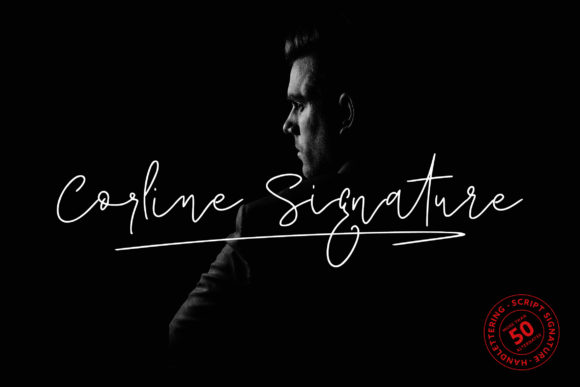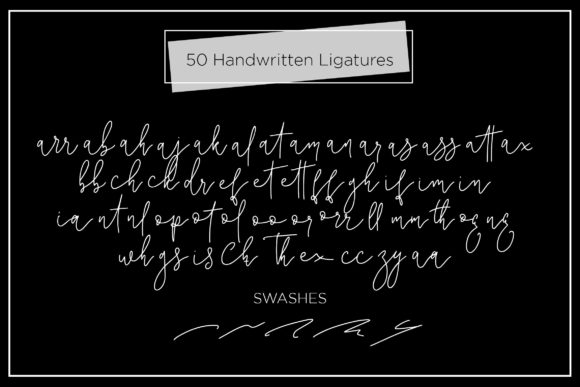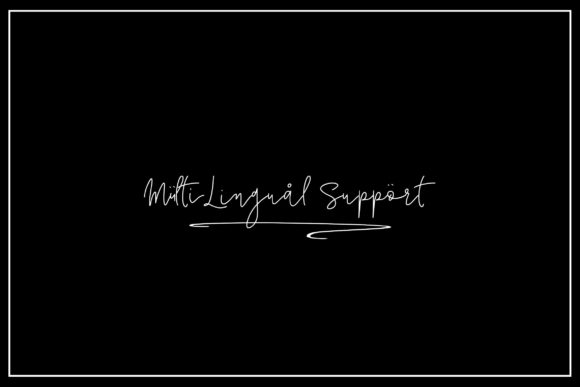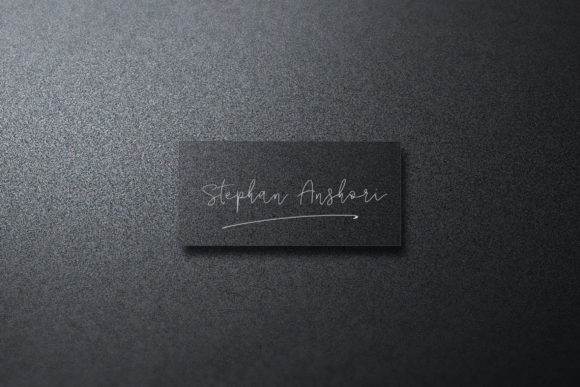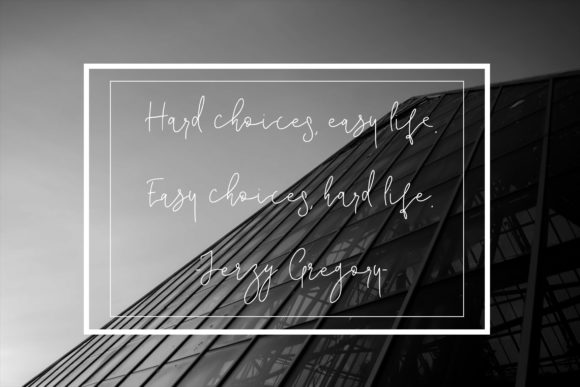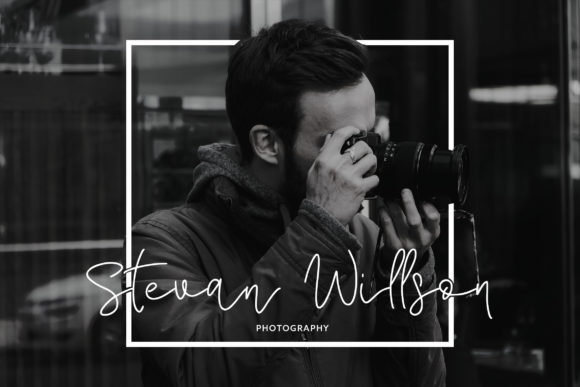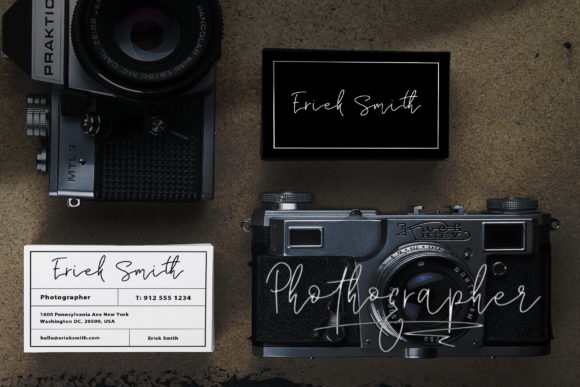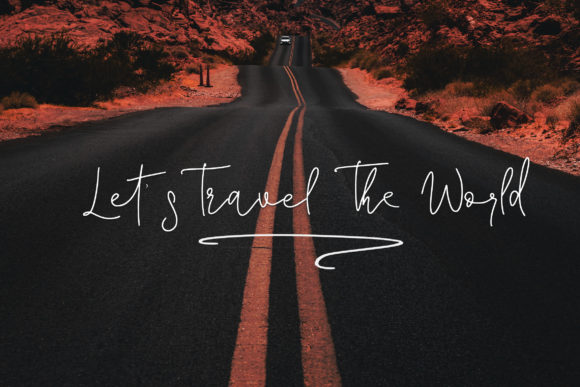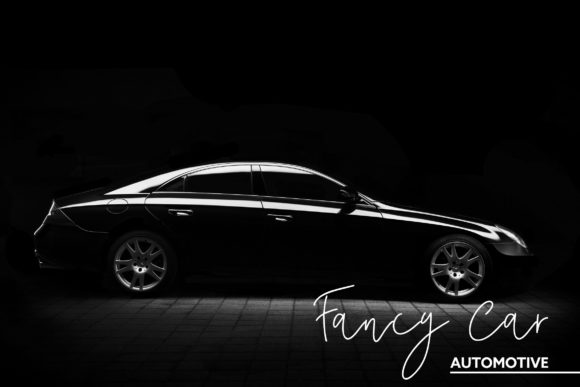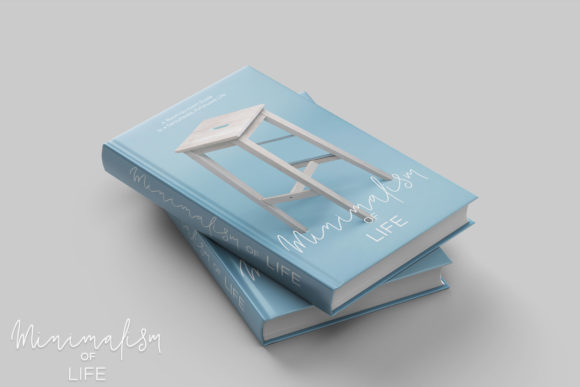
Corline Signature Font
About Corline Signature Font
Corline is a dynamic, sporty and luxurious handwritten font with incredible style. Get inspired by its unique charm.